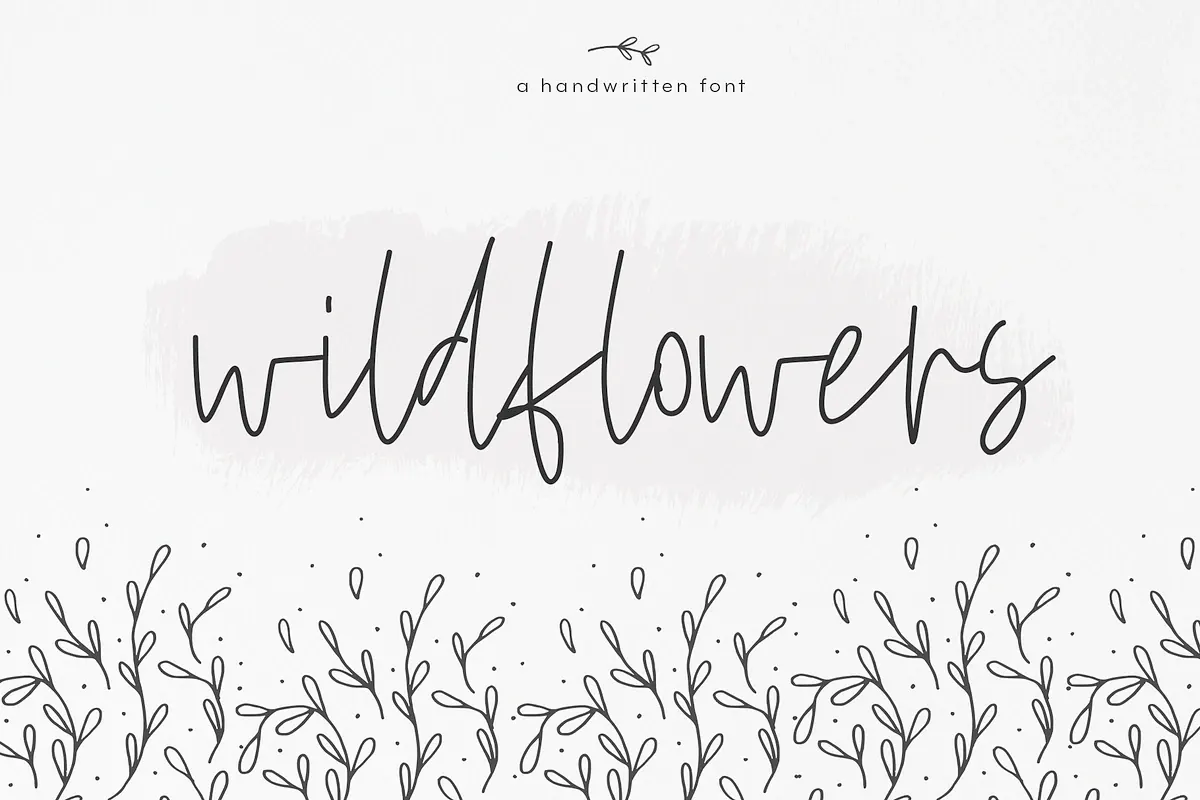
Wildflowers - A Handwritten Font Free Download
Please note, to use this font for commercial purposes, you must purchase the full version. Wildflowers is a charming and expressive handwritten font that adds a personal and artistic touch to any design. With its natural, flowing strokes and unique character, this font is perfect for creating logos, invitations, branding, and creative projects. Whether you're designing a wedding invitation, a handwritten quote, or a whimsical logo, Wildflowers brings a warm, organic feel to your work. Test it out and enjoy free download access for personal use. Experience the beauty and creativity of Wildflowers - A Handwritten Font Free Download before purchasing the commercial license. Add a lovely, handcrafted touch to your designs with Wildflowers.